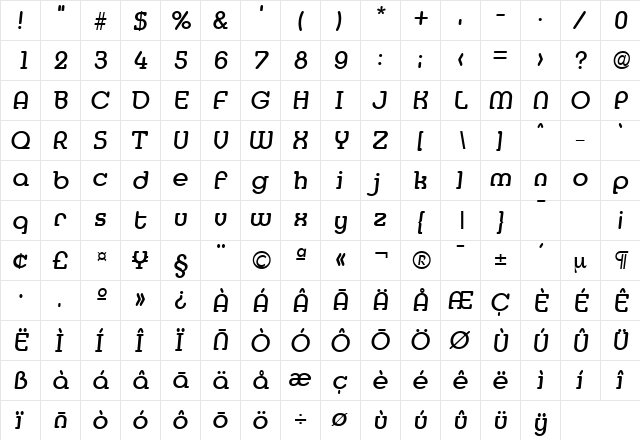
Media-Serial-Medium RegularItalic
Design Context for Media-Serial-Medium Typeface
Media-Serial-Medium is a composed and adaptable typeface that performs quietly and consistently across a wide range of design contexts. The dynamic lean of this cut emphasises speed and emphasis in any layout.
Pro Tip: Try Media-Serial-Medium for annotation and caption copy alongside an upright companion — the contrast in angle creates a dynamic but ordered typographic system.